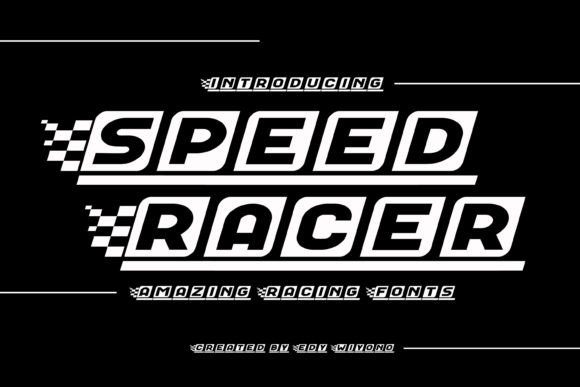
Introducing Speed Racer Font, the ultimate choice for all your modern resume needs! This bold and distinct display font is designed to make your resume stand out from the crowd with its captivating and futuristic style. Created by the talented edywiyonopp, Speed Racer Font is a game-changer for anyone looking to make a lasting impression.
With its modern and sleek design, Speed Racer Font is the perfect choice for sports or racing-related designs. Whether you're creating a poster for a high-octane event or designing a flyer for a thrilling race, this font will take your designs to the next level. Its eye-catching appeal will instantly grab the attention of your audience, leaving a lasting impression.
But it doesn't stop there! Speed Racer Font is not limited to just sports-related designs. Its versatility allows it to be used in various creative projects such as movies, books, games, and more. Imagine the impact it will have on the cover of your next bestselling novel or the title sequence of an action-packed movie. The possibilities are endless!
What sets Speed Racer Font apart from the rest is its ability to evoke emotions. Its bold and daring nature ignites a sense of excitement and adventure, creating a powerful connection with your audience. It's not just a font; it's a statement that speaks volumes about your personality and ambition.
In conclusion, Speed Racer Font is the ultimate choice for modern resume designs, sports-related projects, and beyond. Its captivating and futuristic style, coupled with its versatility and ability to evoke emotions, makes it a must-have for any creative individual. Download it now and let your designs zoom past the competition!